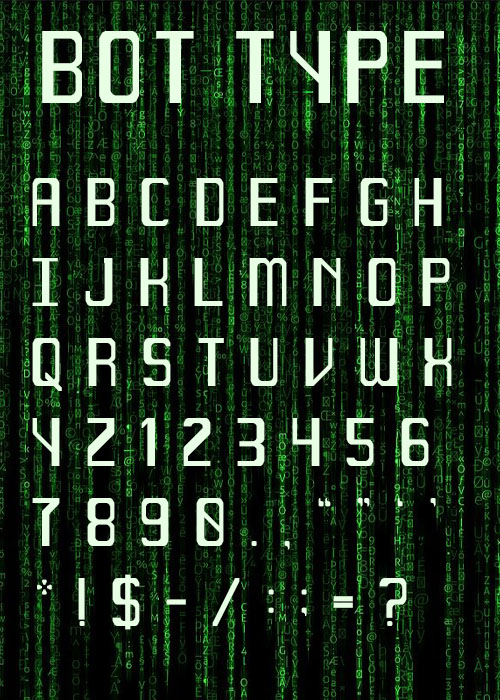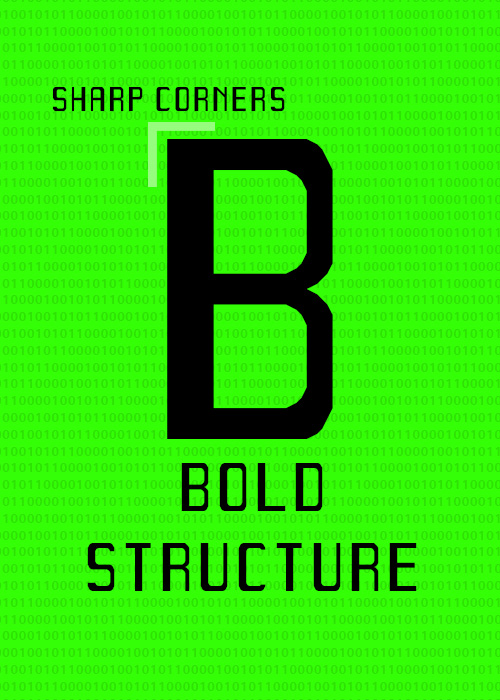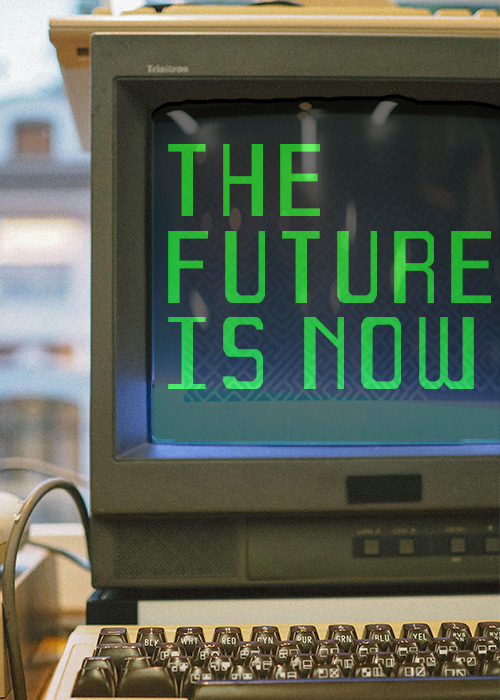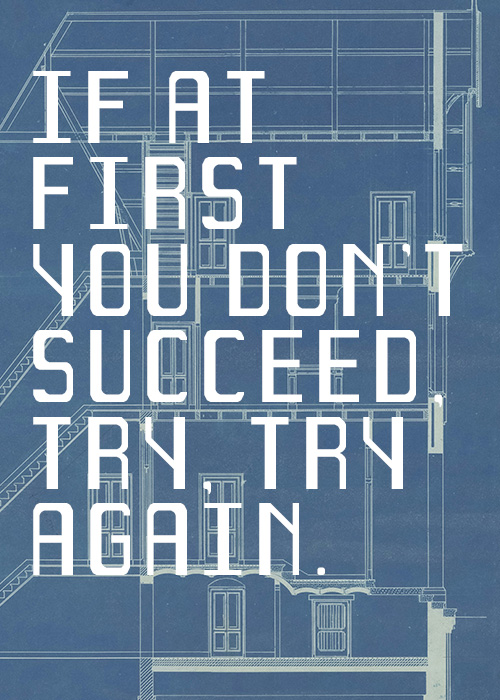
• Ideal for Digital Interfaces – The structured nature of the font makes it excellent for futuristic UI designs, data dashboards, and gaming interfaces.
Tech-Related Branding – Startups, cybersecurity firms, and AI-related brands could use it for logos and marketing materials.
Display & Headline Use – Best suited for large-scale usage like posters, event promotions, or themed branding.
Retro-Digital Appeal – The pixelated effect evokes a nostalgic 80s-90s arcade game aesthetic while maintaining a modern touch.